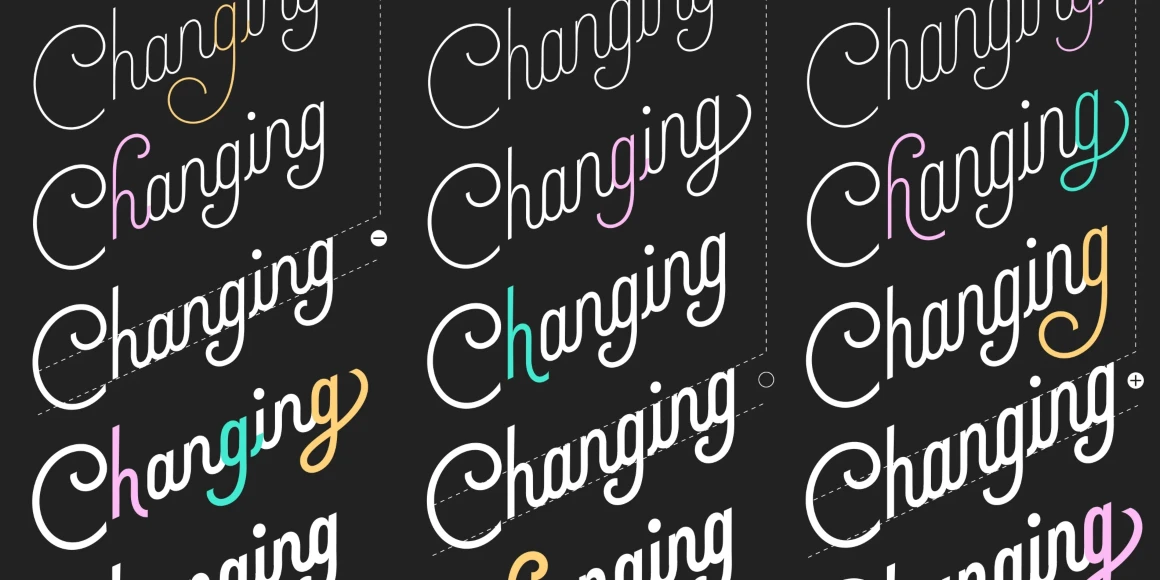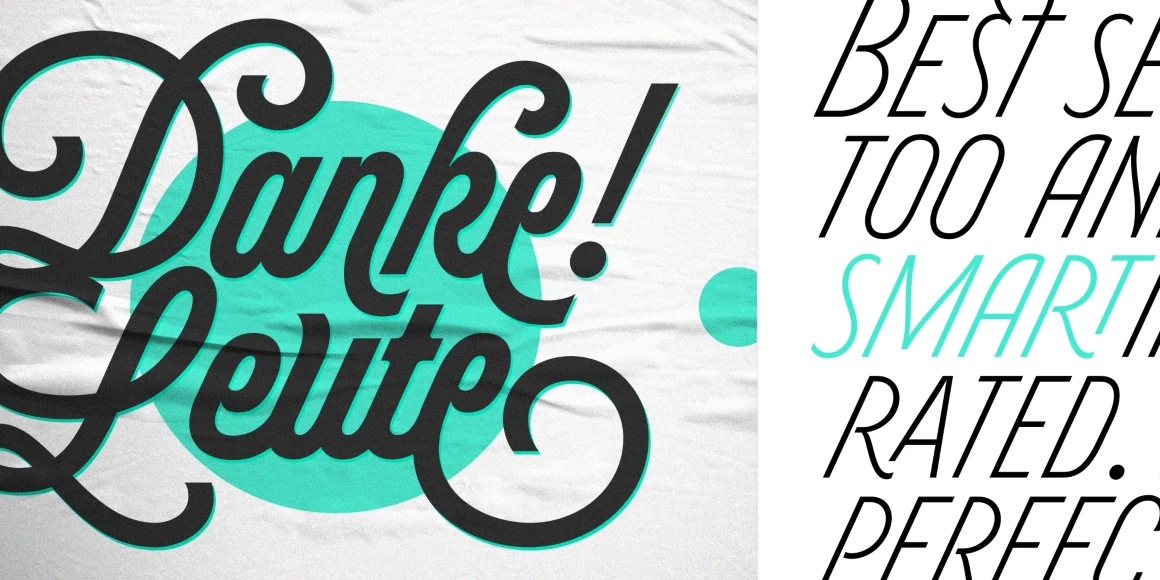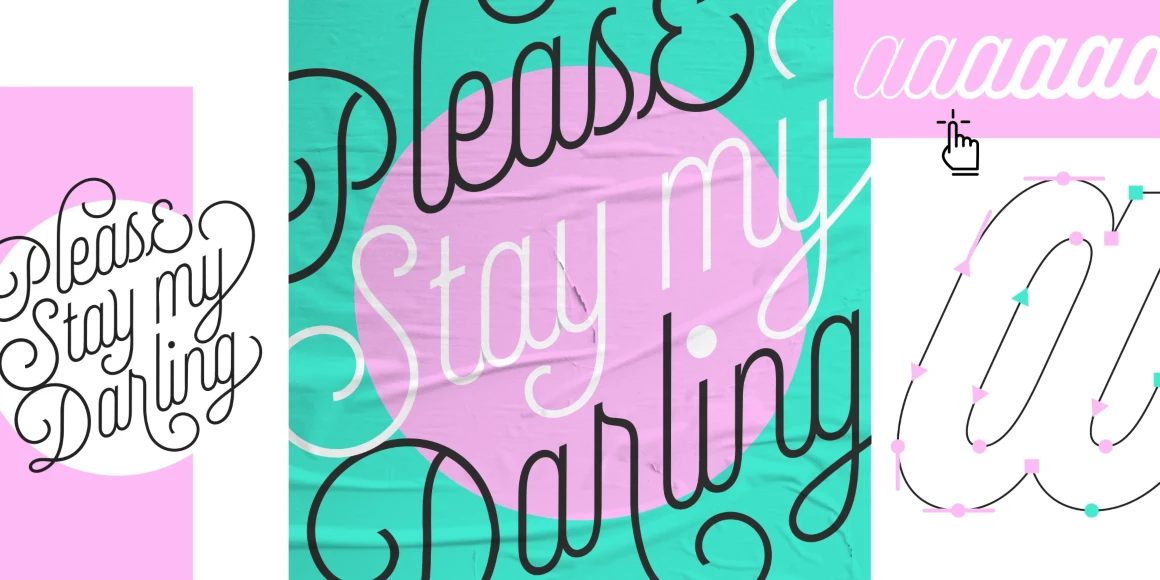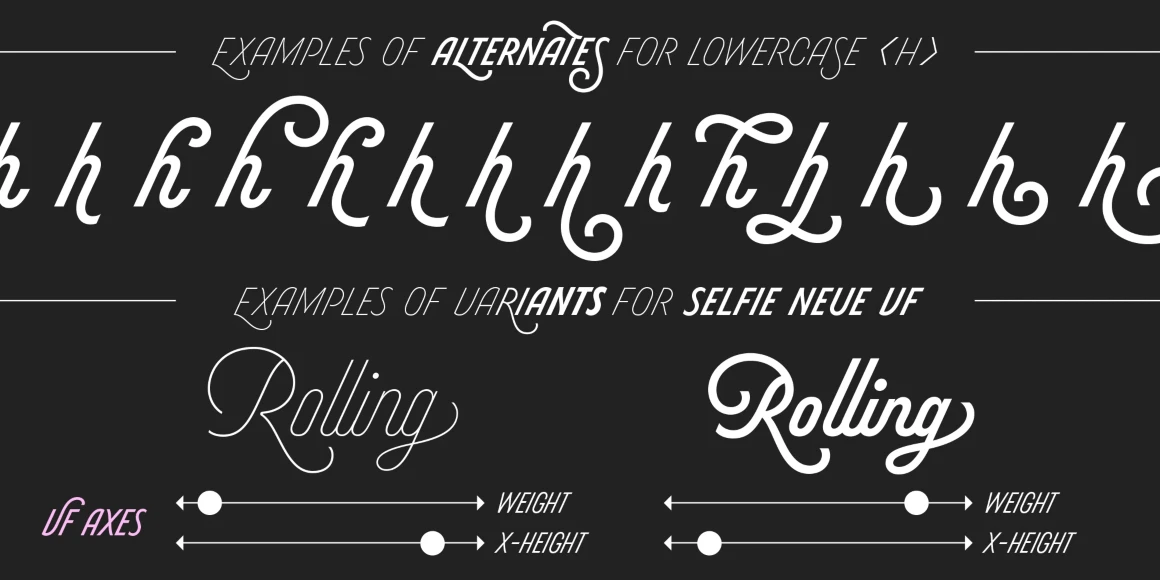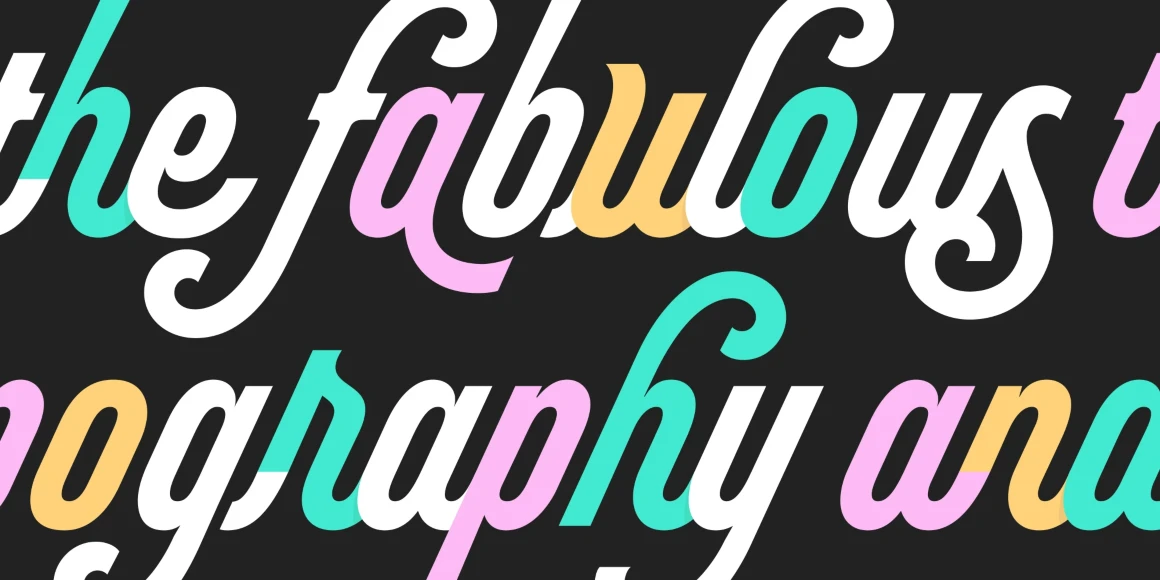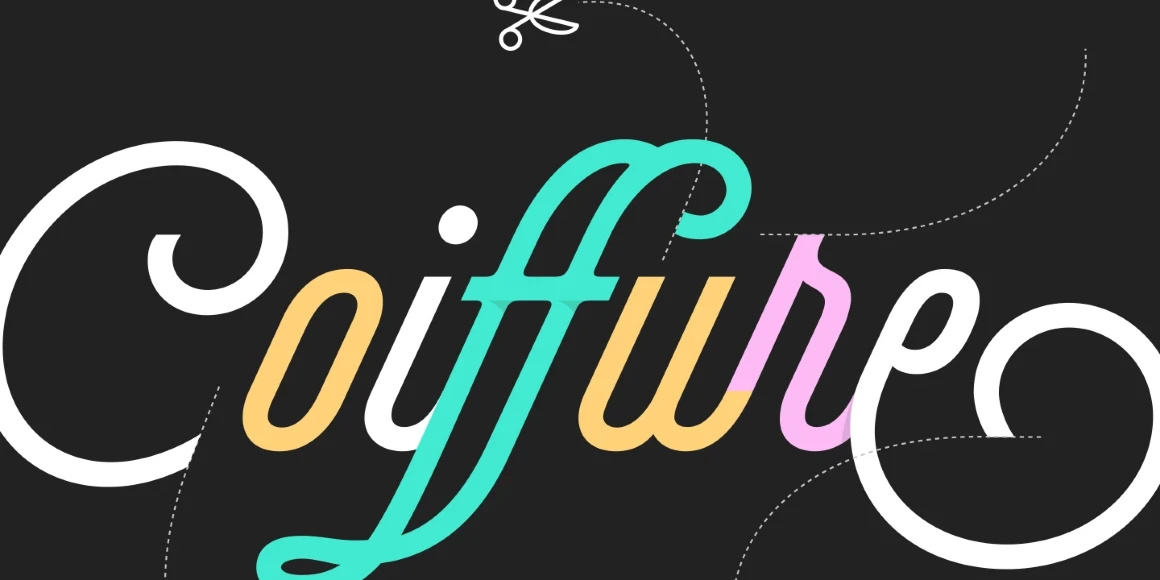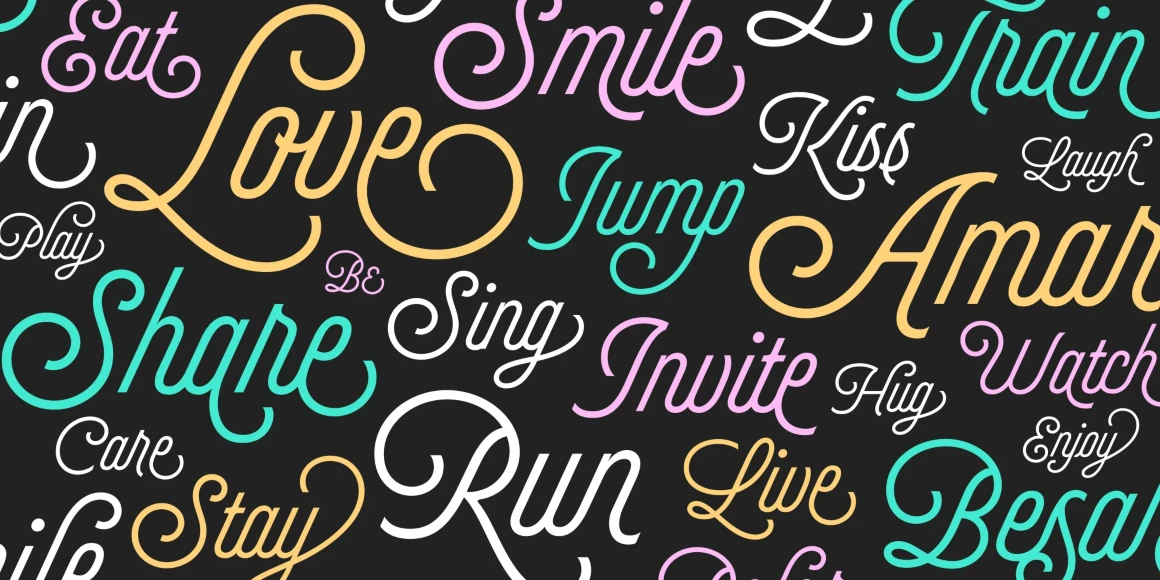
Selfie Neue Sharp
By Maximiliano Sproviero
Selfie Neue Sharp is a vibrant monoline script blending elegant Spencerian logic and energetic Buenos Aires neon. While the diverse ligatures and swashes give it personality and rhythm, the Caps companion font and the variable axes for weight and x-height offer endless typographic flexibility. Whether you’re developing brands, book covers, restaurants, festivals, packaging, or digital content, Selfie Neue is expressive, stylish, and impossible to ignore.
Dingbats designed by Melissa Cronenbold.